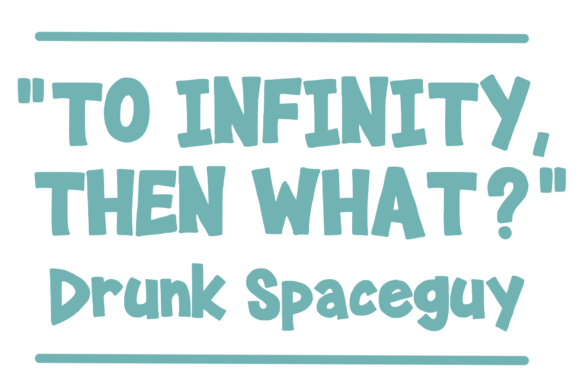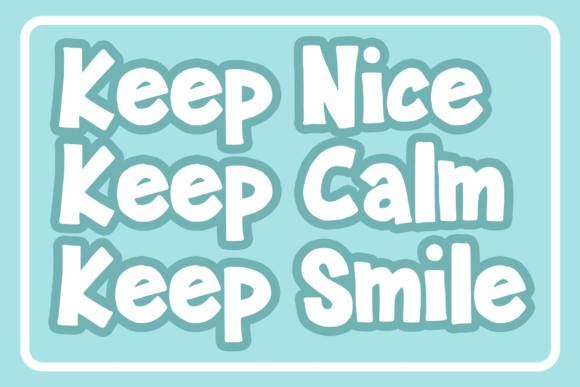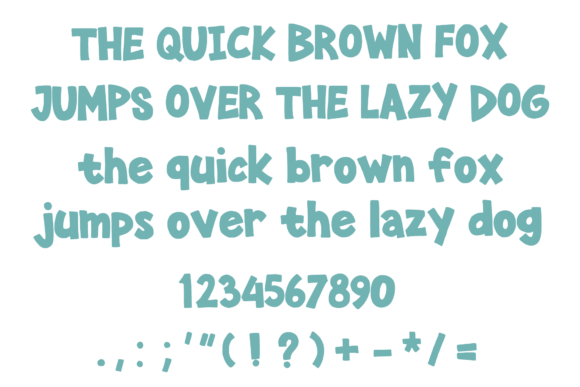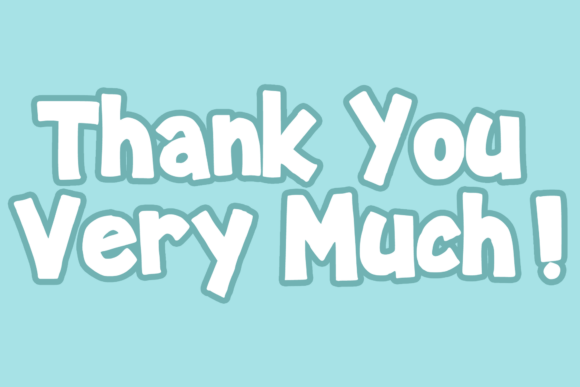
Introducing the Giggle Comic Font: Add a Playful Touch to Your Designs
Are you looking for a font that can add a dash of fun and playfulness to your designs? Look no further than the Giggle Comic Font! This bold and vibrant cartoon font is perfect for a wide range of projects, from kids’ books and party decorations to t-shirts, greeting cards, and more.
What is the Giggle Comic Font?
The Giggle Comic Font is a carefully crafted typeface designed to bring a smile to your face and a playful touch to your designs. Its bold and chunky letters are reminiscent of classic comic books, making it perfect for projects that require a fun and energetic vibe.
What Can You Use the Giggle Comic Font For?
The possibilities are endless with the Giggle Comic Font! Here are some ideas to get you started:
- T-shirts and Clothing: Add a playful touch to your apparel designs with this fun font. It’s perfect for kids’ clothing, party favors, and more.
- Kids’ Book Designs: Create engaging and interactive books for kids with the Giggle Comic Font. Its bold letters and playful vibe are sure to delight young readers.
- Kids’ Party Needs: Make your kids’ party decorations, invitations, and favors stand out with this fun font. You can use it to create colorful banners, stickers, and more.
- Greeting Cards: Add a playful touch to your greeting cards for birthdays, holidays, and other special occasions.
- Stickers and Posters: Create eye-catching stickers and posters with the Giggle Comic Font. Its bold letters and vibrant vibe are sure to grab attention.
- Banners: Use this font to create colorful and engaging banners for parties, events, and more.
Why Choose the Giggle Comic Font?
So, why should you choose the Giggle Comic Font for your designs? Here are just a few reasons:
- Fun and Playful: This font is designed to bring a smile to your face and a playful touch to your designs.
- Bold and Vibrant: The Giggle Comic Font features bold and chunky letters that are sure to grab attention.
- Versatile: You can use this font for a wide range of projects, from kids’ books and party decorations to t-shirts and greeting cards.
- Easy to Read: Despite its bold and playful design, the Giggle Comic Font is easy to read, making it perfect for use in a variety of contexts.
How to Use the Giggle Comic Font
Here are a few tips for getting the most out of the Giggle Comic Font:
- Experiment with Colors: The Giggle Comic Font looks great in a variety of colors, so don’t be afraid to experiment and find the perfect hue for your design.
- Mix and Match: Try pairing the Giggle Comic Font with other fonts and design elements to create a unique and eye-catching design.
- Keep it Simple: Don’t overcomplicate your design. The Giggle Comic Font is bold and playful, so let it shine!